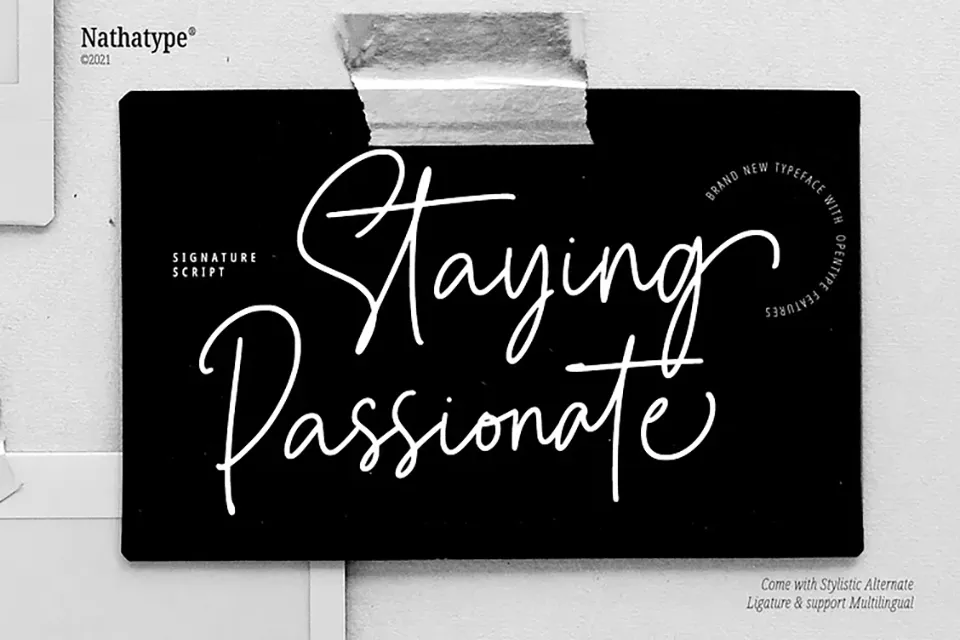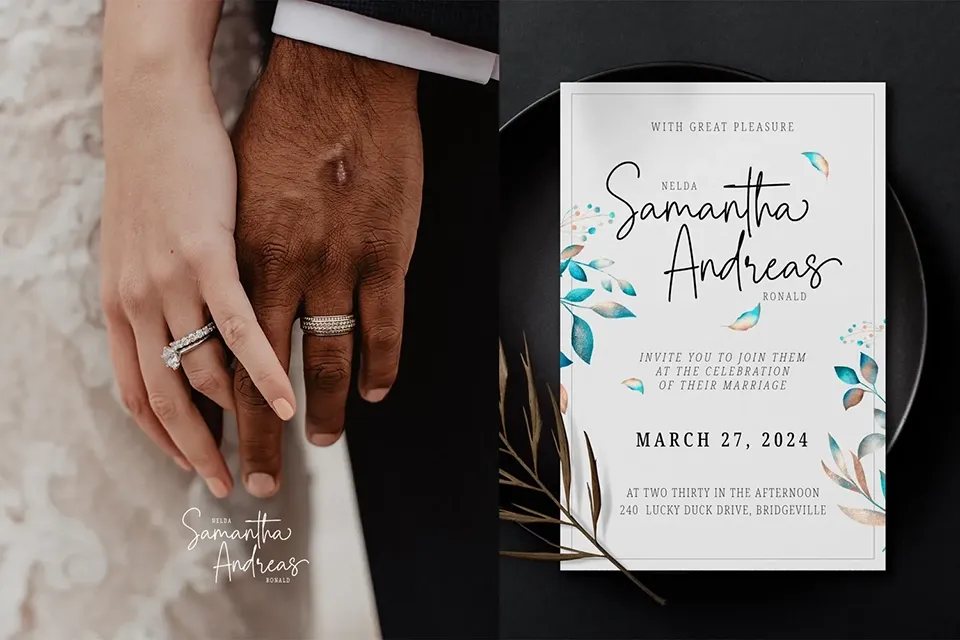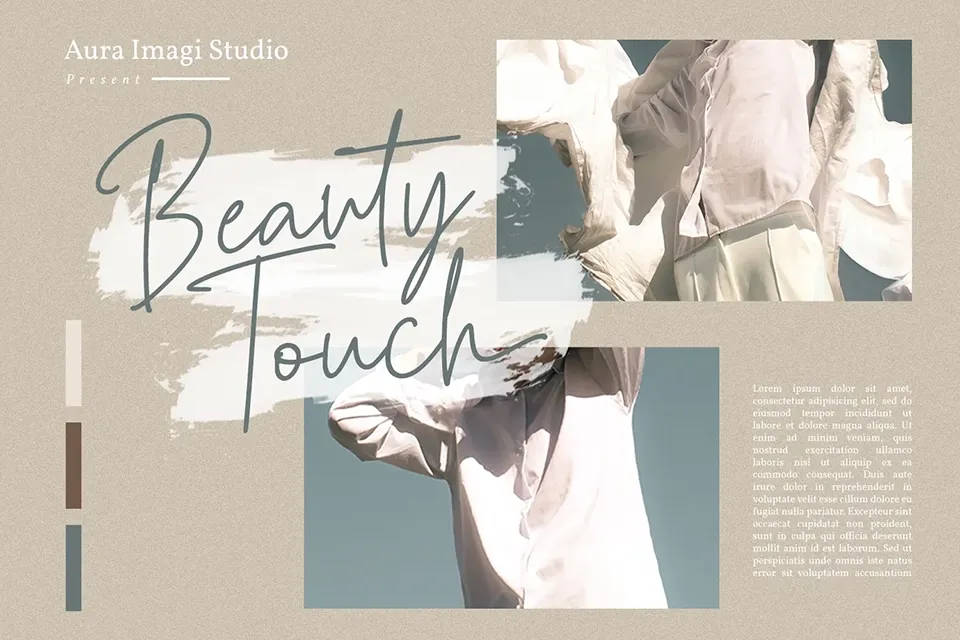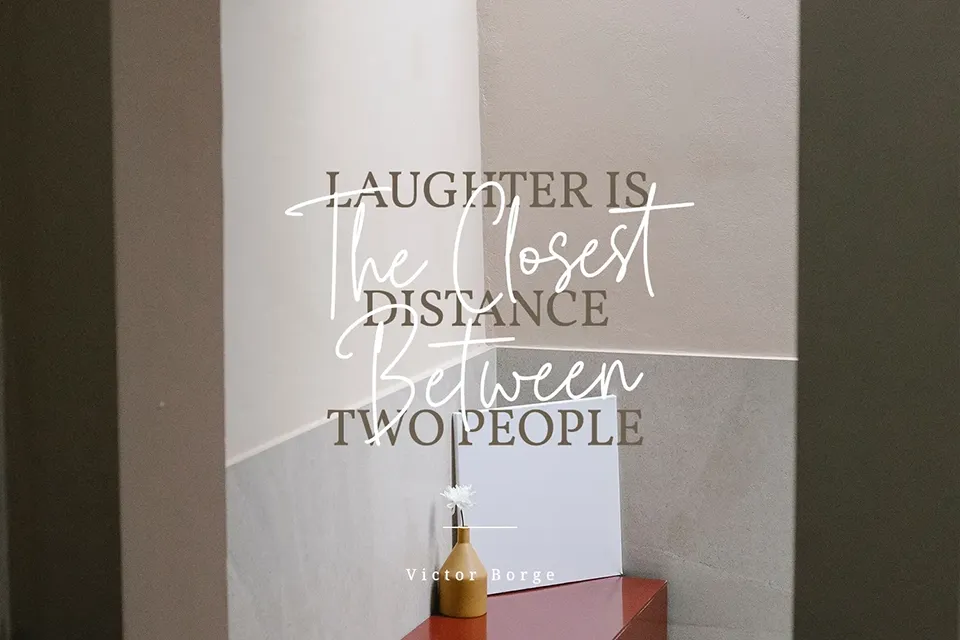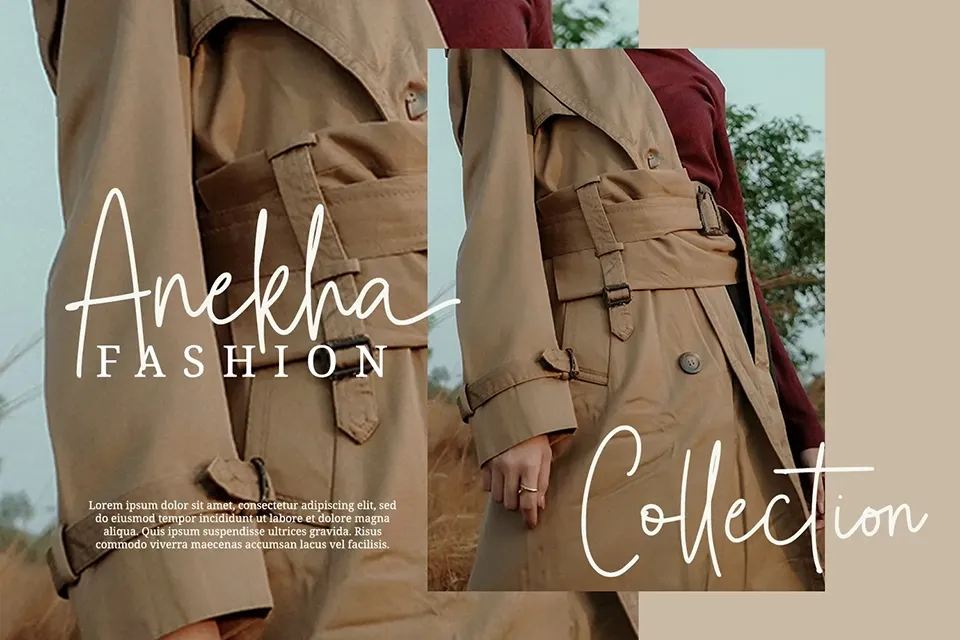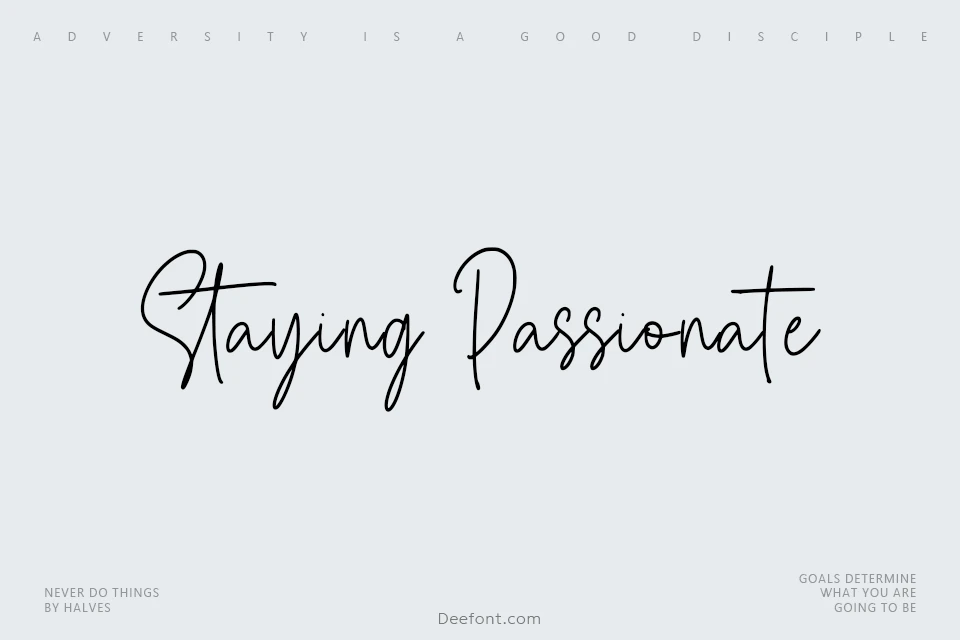
Staying Passionate Font
Staying Passionate Font is a beautifully handcrafted signature script font designed to bring elegance, versatility, and style to your branding, invitations, and creative projects. Every stroke and curve is crafted to evoke happiness and sophistication, making it ideal for standout headings, wedding cards, online promotions, Instagram quotes, business cards, t-shirts, and more. It features standard ligatures, stylistic alternates, multilingual support, and is PUA encoded for easy access to glyphs. The font is compatible with major design software and supports a wide range of languages, ensuring your designs are globally accessible.